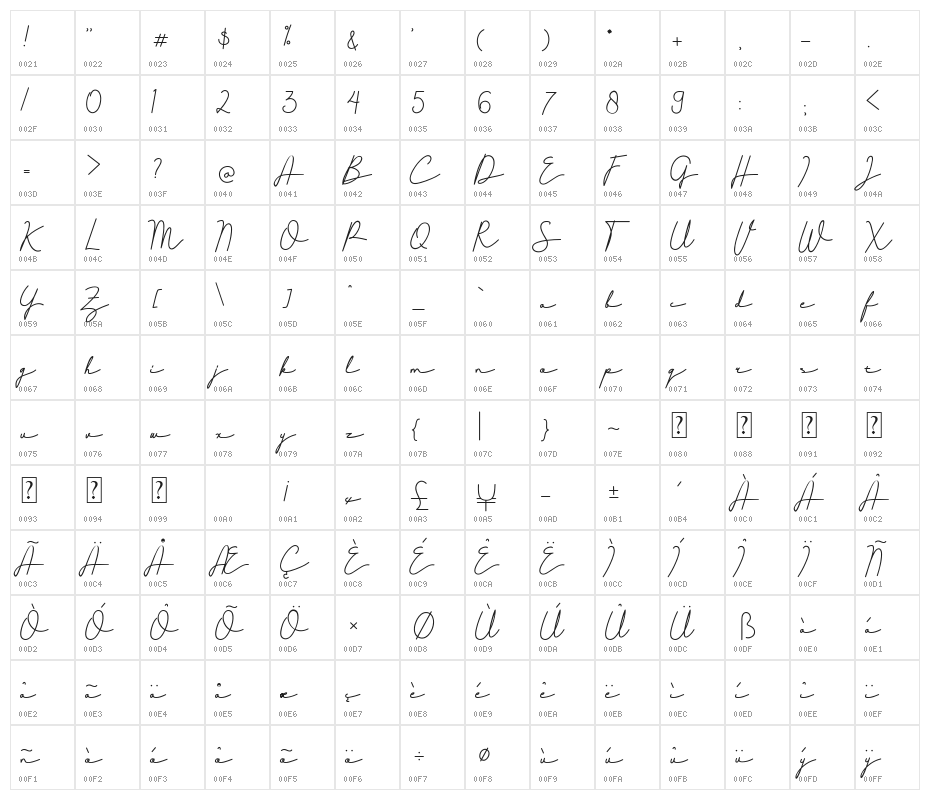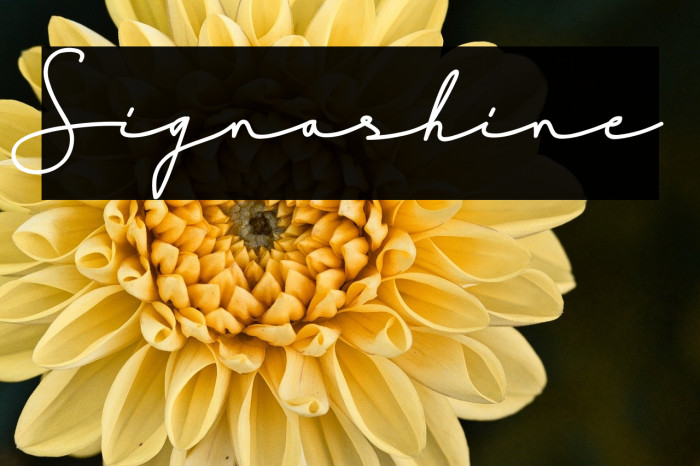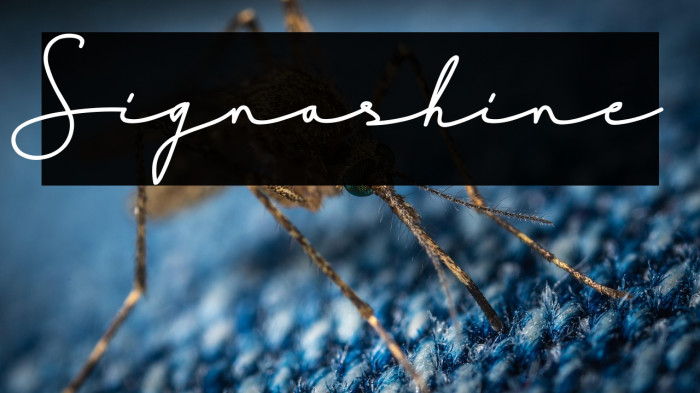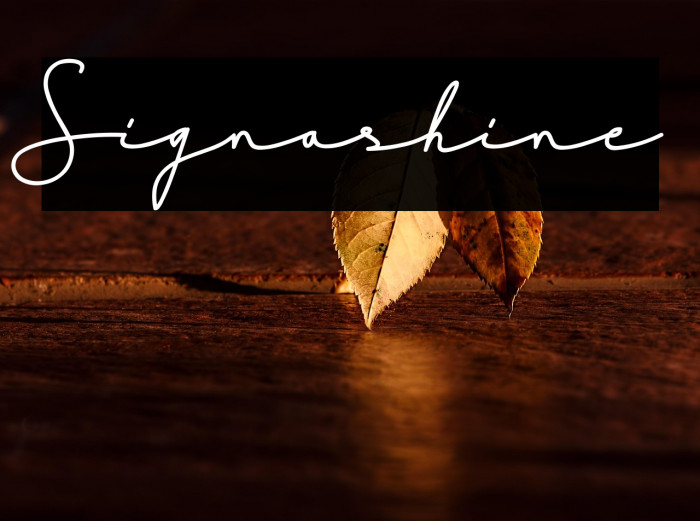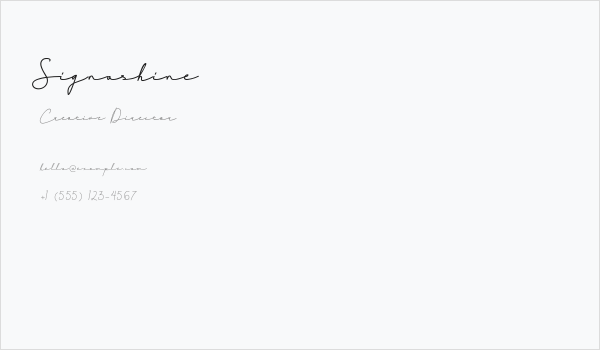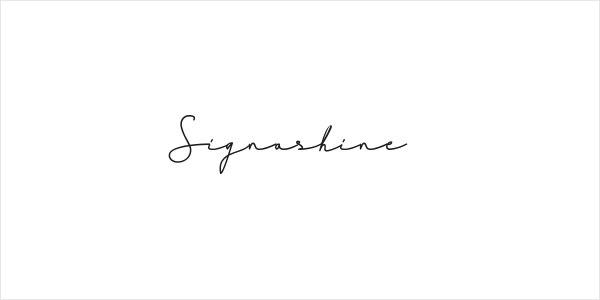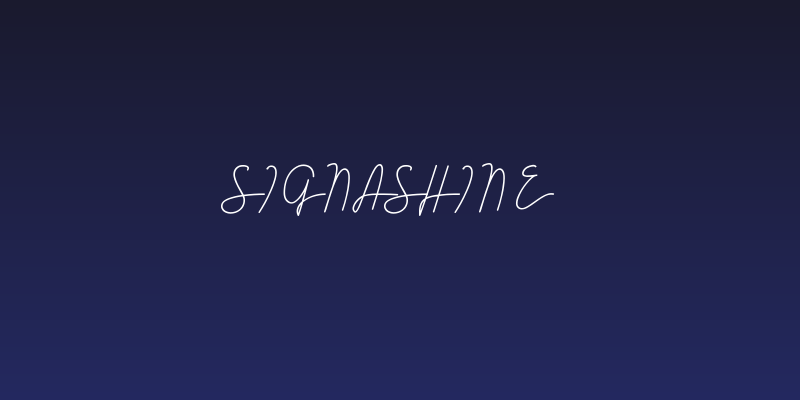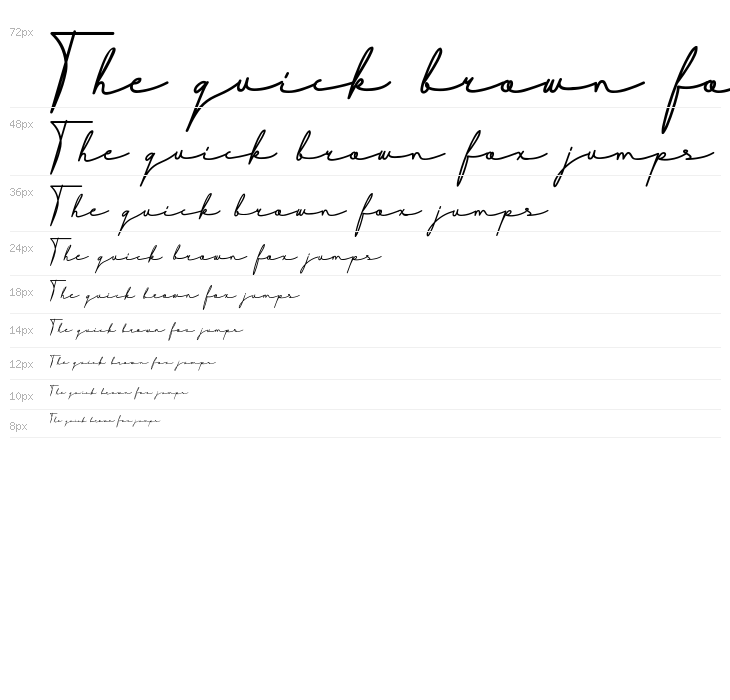
Signashine Font
Signashine Description
This font exudes a playful and elegant handwritten style, characterized by its smooth, flowing lines and cursive script. The letters are connected in a fluid manner, giving it a natural and organic feel. The uppercase letters maintain a consistent height, while the lowercase letters exhibit a slight slant, enhancing the casual yet sophisticated appearance. The numerals and special characters are designed to complement the alphabet, maintaining the same fluidity and style. This font is perfect for projects that require a personal touch, such as invitations, greeting cards, or branding materials.
| Use Case | Headlines, Logos, Invitations |
| Proposed Projects | Ideal for invitations, greeting cards, personal branding, and creative projects. |